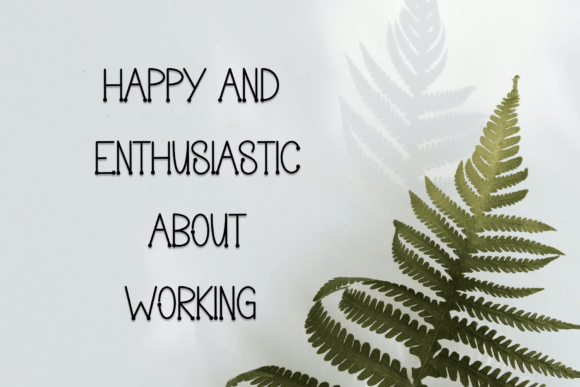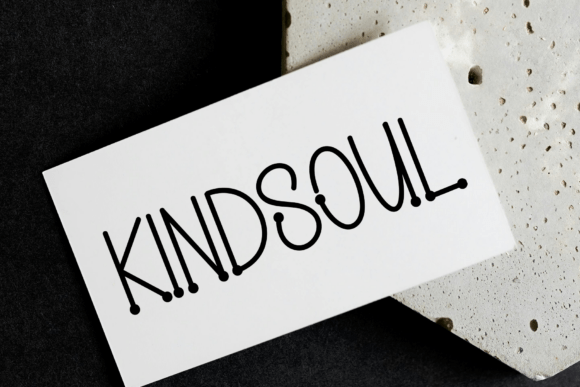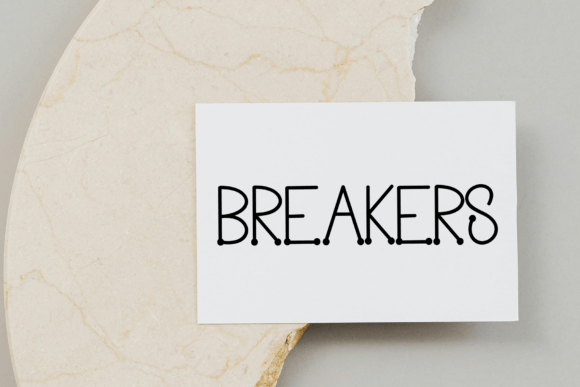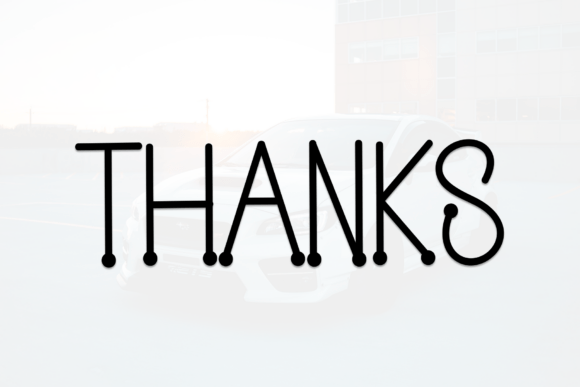
Furniture Font: A Charming Handwritten Display Font for Your Design Projects
Are you looking for a font that can add a touch of warmth and personality to your design projects? Look no further than Furniture Font, a charming handwritten display font that is filled with a sense of heartfelt perfection. With its smooth strokes and organic lines, this font is perfect for creating a relaxed atmosphere in a variety of design projects, from branding and invitations to social media graphics and more.
The Characteristics of Furniture Font
Furniture Font is a unique and versatile font that offers a range of characteristics that make it perfect for a variety of design projects. Some of its key features include:
- Smooth Strokes: Furniture Font features smooth, flowing strokes that give it a natural and organic feel.
- Organic Lines: The font’s organic lines and curves create a sense of warmth and personality, making it perfect for designs that require a human touch.
- Handwritten Feel: Furniture Font has a charming handwritten feel that is perfect for creating unique and personalized designs.
- Display Font: As a display font, Furniture Font is designed to make a statement and grab attention.
Uses for Furniture Font
Furniture Font is a versatile font that can be used in a variety of design projects, including:
- Branding: Use Furniture Font to create a unique and memorable brand identity that reflects your company’s personality and values.
- Invitations: Add a touch of warmth and personality to your invitations with Furniture Font, making them perfect for weddings, parties, and other special events.
- Social Media Graphics: Use Furniture Font to create eye-catching social media graphics that will help you stand out from the crowd and engage your audience.
- Packaging: Add a personal touch to your product packaging with Furniture Font, making it perfect for food, craft, and other consumer products.
Why Choose Furniture Font?
There are many reasons why Furniture Font is a great choice for your design projects. Here are just a few:
- Unique and Memorable: Furniture Font is a unique and memorable font that will help your designs stand out from the crowd.
- Easy to Read: Despite its handwritten feel, Furniture Font is easy to read and understand, making it perfect for designs that require a clear message.
- Versatile: Furniture Font is a versatile font that can be used in a variety of design projects, from branding and invitations to social media graphics and more.
- High-Quality: Furniture Font is a high-quality font that is designed to deliver exceptional results in your design projects.
Tips for Using Furniture Font
Here are a few tips for using Furniture Font in your design projects:
- Use it Sparingly: Furniture Font is a display font, so it’s best to use it sparingly to make a statement.
- Pair it with Other Fonts: Pair Furniture Font with other fonts to create a unique and interesting contrast.
- Experiment with Colors: Experiment with different colors to find the perfect match for your design project.
- Pay Attention to Kerning: Pay attention to kerning to ensure that your text is easy to read and visually appealing.
Furniture Font is a charming handwritten display font that is perfect for adding a touch of warmth and personality to your design projects. With its smooth strokes and organic lines, this font is sure to evoke a relaxed atmosphere and engage your audience. Whether you’re a designer or a crafter, Furniture Font is a great choice for a variety of design projects, from branding and invitations to social media graphics and more.